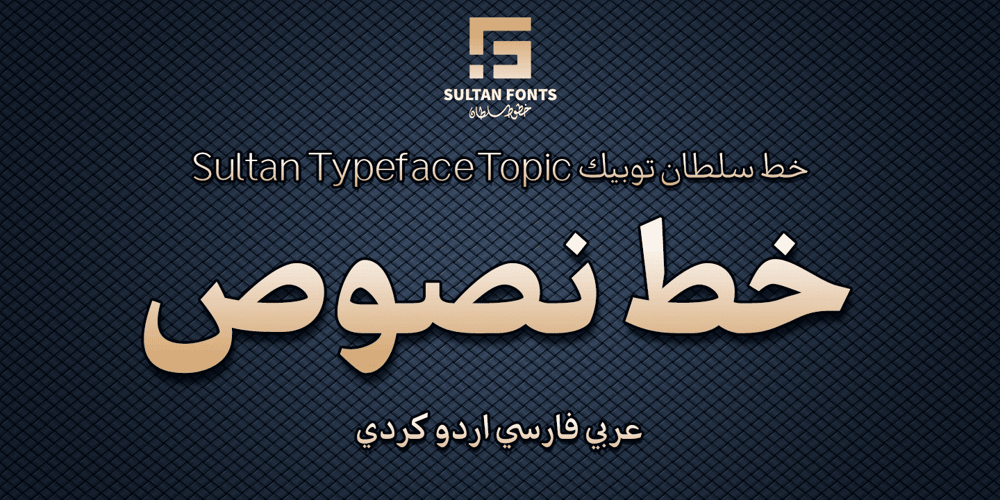
SF Topic Font Family was designed by Sultan Maqtari and published by Sultan Fonts. SF Topic contains 4 styles and family package options. Topic – Dedicated to writing a Big text in newspapers, magazines, road boards, book , TV and other printing products, and web pages.The Topic font contains 4 styles (Light, regular, Medium and bold)The font includes a matching Latin design and support for Arabic, Persian, Kurdish, and Urdu.